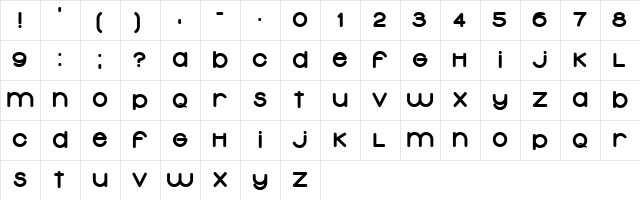
Typolino Heavy
Design Context for Typolino Typeface
Typolino is a composed and adaptable typeface that performs quietly and consistently across a wide range of design contexts.